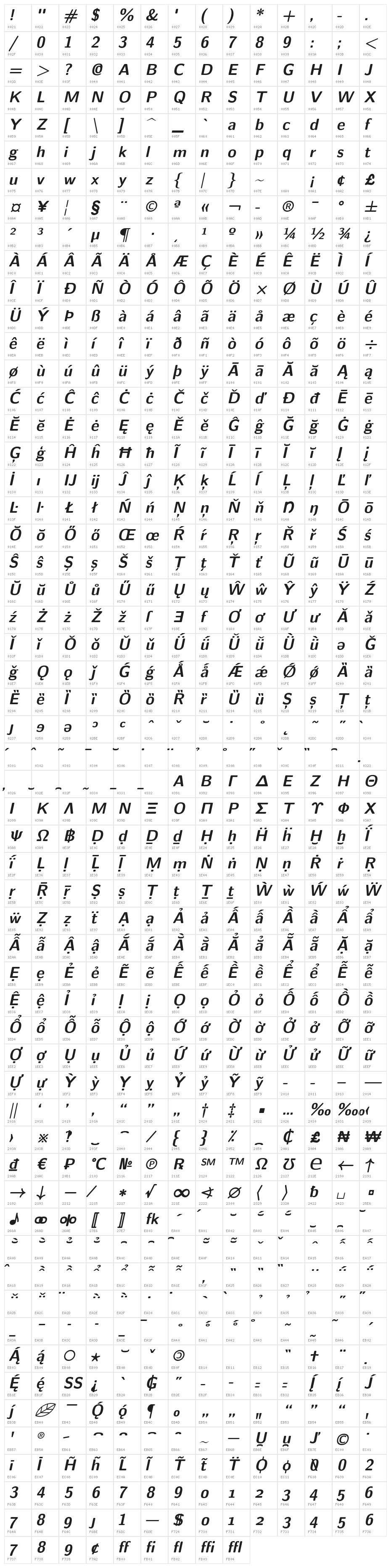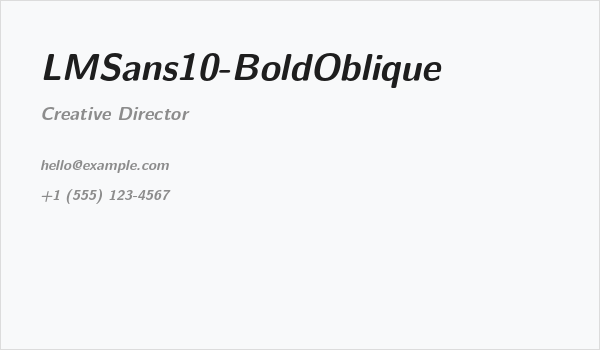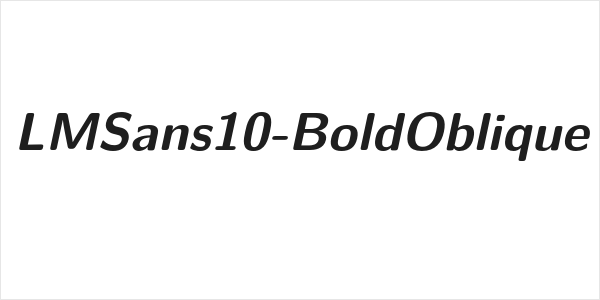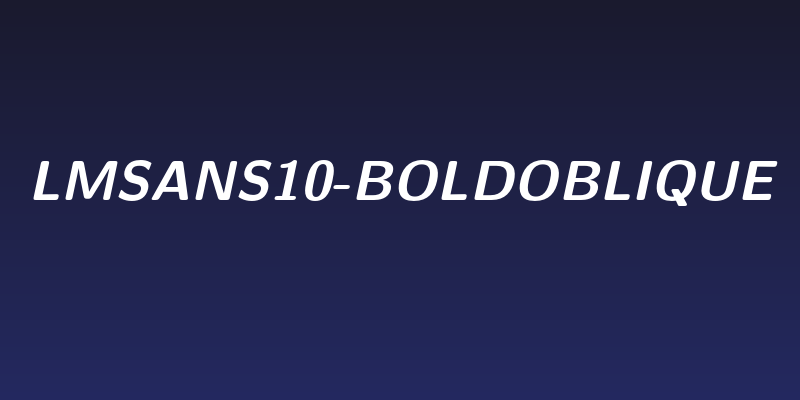
LMSans10-BoldOblique Font
LMSans10-BoldOblique Description
This font exhibits a modern and sleek design with a bold and oblique style. The characters are slightly slanted, giving a dynamic and forward-moving appearance. The strokes are consistent and smooth, providing a clean and professional look. The uppercase and lowercase letters maintain a uniform width, contributing to a balanced and harmonious text flow. Numerals are clear and distinct, ensuring readability in various contexts. Special characters are well-integrated, enhancing the font's versatility. Overall, this font is suitable for projects that require a contemporary and assertive typeface.
| Use Case | Headlines, Logos, Digital content |
| Proposed Projects | Ideal for branding, advertising, headlines, and digital content that demands attention. |